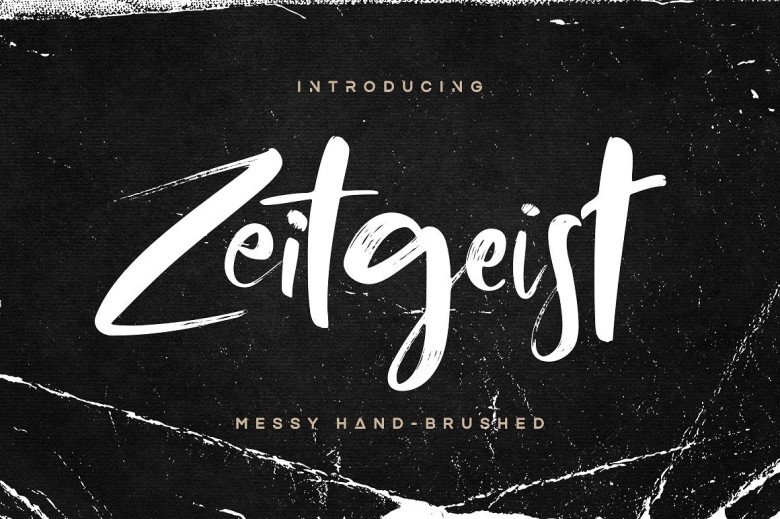
Zeitgeist Brush Font
Hi designer. If you are looking for a messi hand-brushed font, this would be a good choice. Introducing Zeitgeist! It is designed and shared by Hindia Studio. It’s playful, casual, and fresh, based on real handwritting. Available in 2 versions, regular & alternative. Both scripts are quite versatile and surely meant to grab attention yet bring positivity and excitement. Mix the characters up for more fascinating result!